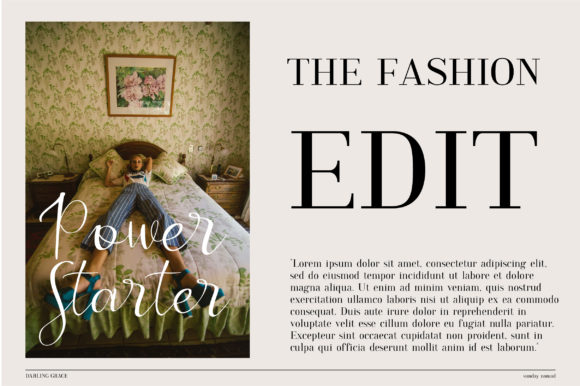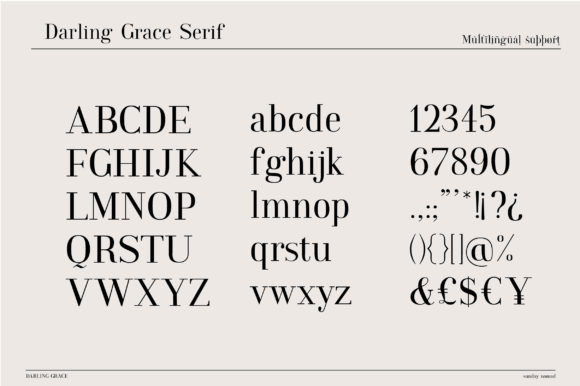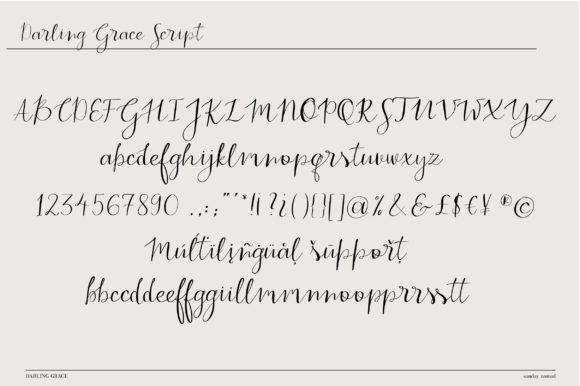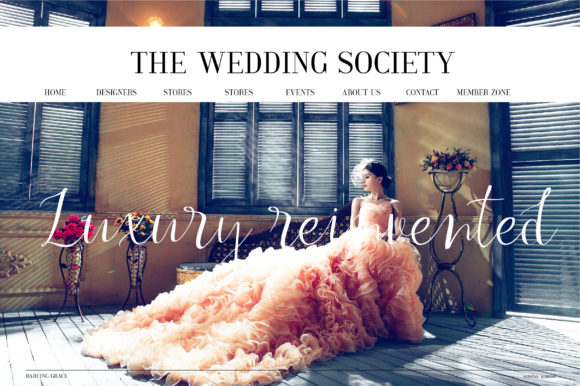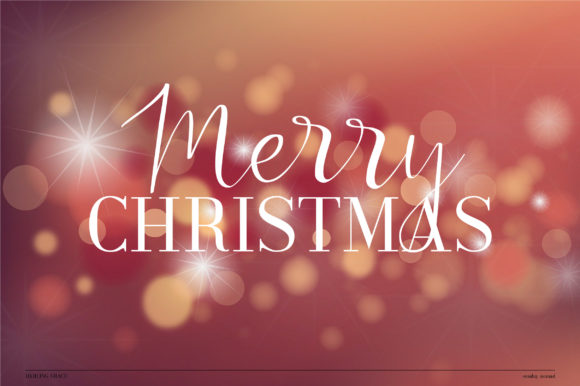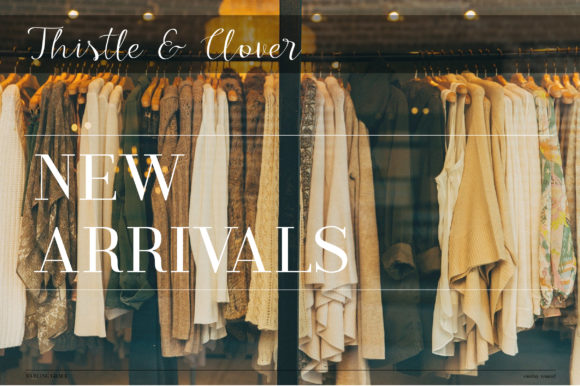
Discovering the Perfect Pair: Darling Grace Duo Font
You’ve poured your heart into a design project, and finally, the perfect idea hits you – a beautiful combination of elegant and modern typography that screams sophistication. This is exactly what the Darling Grace Duo Font is all about: bringing a touch of whimsy and romance to your designs.
This dreamy font duo is a treasure for designers, offering a unique blend of classic and contemporary styles that can elevate any project. Whether you’re working on branding, card design, magazine spreads, or websites, the Darling Grace Duo Font is sure to impress. Its versatility makes it a valuable addition to any designer’s toolkit, providing endless possibilities for creative expression.
Darling Grace Duo Font Key Features
- Unique Characteristics: The Darling Grace Duo Font is a beautiful, elegant script font designed to convey a sense of sophistication and refinement. It features a unique blend of classic and modern elements, making it perfect for a wide range of design projects, from wedding invitations to luxury branding.
- Font Style: Script, Elegant, Sophisticated
Darling Grace Duo Font Review
At first glance, Darling Grace Duo Font is an elegant and beautiful script font. It has a unique charm that makes it perfect for creative projects. ✨ The combination of uppercase and lowercase letters creates a harmonious balance, and the subtle flair at the ends of letters adds a touch of sophistication. ✨ I also appreciate the generous character set, which includes a wide range of languages and punctuation marks.
- Unique and elegant design
- Perfect for creative projects
- Harmonious balance between uppercase and lowercase letters
- Subtle flair at the ends of letters
- Generous character set
- ⚠️ May not be suitable for formal or technical documents
- ⚠️ Some letters may be difficult to read at small font sizes
- ⚠️ Limited support for some languages and character sets
Overall, I think Darling Grace Duo Font is a beautiful addition to any designer’s toolkit. While it may have some limitations, it’s perfect for creative projects where you want to add a touch of elegance and sophistication. With some careful use, you can create stunning designs that showcase the font’s unique charm.
Getting the Most Out of Darling Grace Duo Font
Here are some tips to get the most out of Darling Grace Duo Font:
- Use it for titles and headings to add a touch of elegance to your designs.
- Pair it with other fonts to create a beautiful font combination.
Darling Grace Duo Font is perfect for:
- Font Use: Use Darling Grace Duo Font for the wedding invitation’s main text, emphasizing the bride and groom’s names, wedding date, and venue.
- Design Elements: Combine with watercolor illustrations of flowers, lace, or other romantic elements to add a touch of whimsy.
- Color Scheme: Choose soft pastel colors, such as pale pink, lavender, or mint green, to match the elegant and romantic feel of the font.
- Font Use: Use Darling Grace Duo Font as the main title font, highlighting the book’s title and author’s name.
- Design Elements: Combine with a vintage-style background or a minimalist design to create a striking contrast.
- Color Scheme: Choose a bold, eye-catching color for the title, such as navy blue or emerald green, to grab the reader’s attention.
- Font Use: Use Darling Grace Duo Font for journaling prompts, quotes, or inspirational messages, adding a touch of elegance and sophistication.
- Design Elements: Combine with hand-drawn illustrations, watercolor backgrounds, or other
Project Ideas Using Darling Grace Duo Font
A charming wedding invitation that sets the tone for a romantic and elegant wedding.
Project 2: Book Title Design
A beautiful book title design that showcases the author’s writing style and genre.
Project 3: Journal Page Design
A beautifully designed journal page that inspires reflection and creativity.